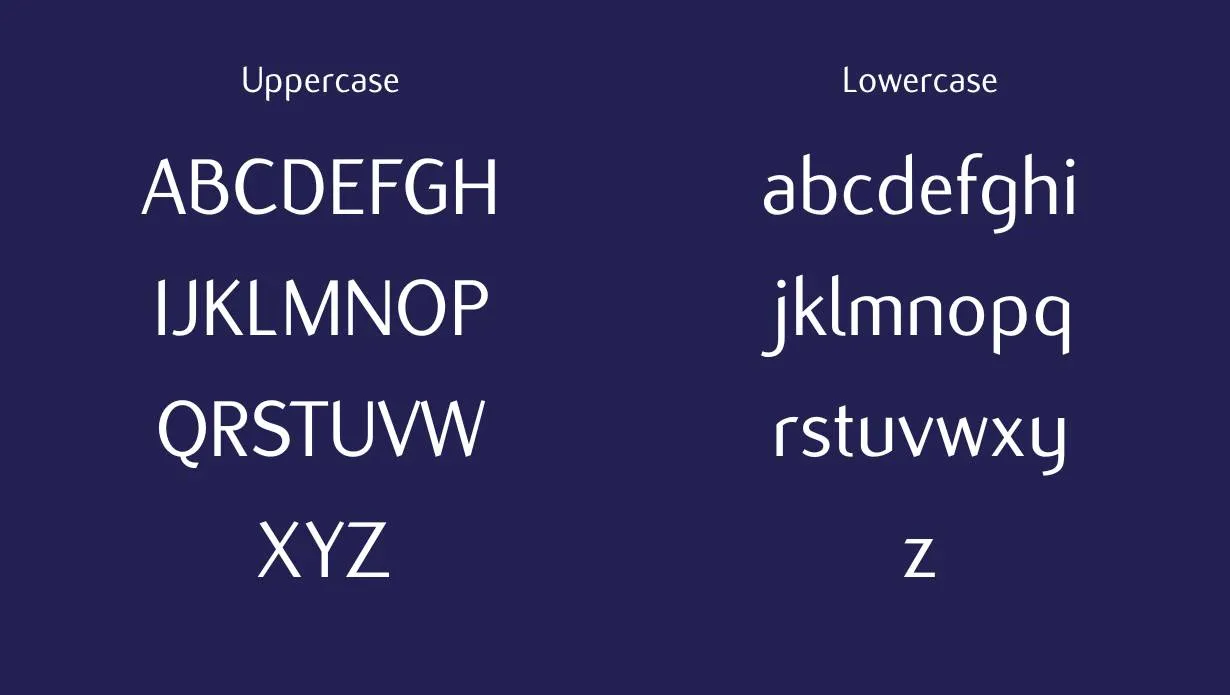
Flux Font has a unique and modern lines and belongsĀ Sans-Serif font family. The characters of this typeface have a simple, decent, and elegant appearance.
| Name | Flux Font |
| Designer | Monib Mahdavi |